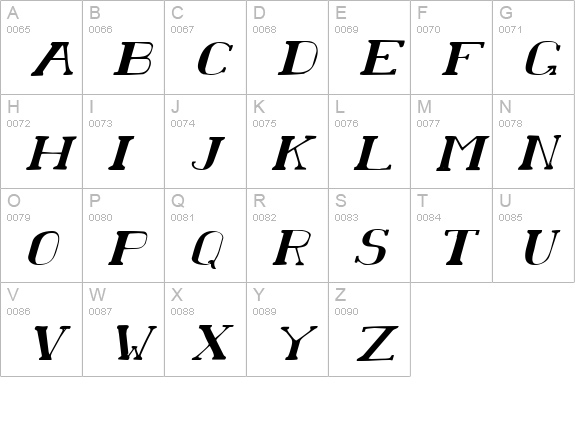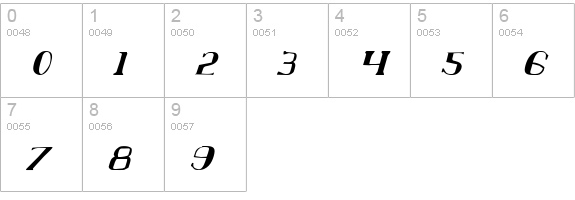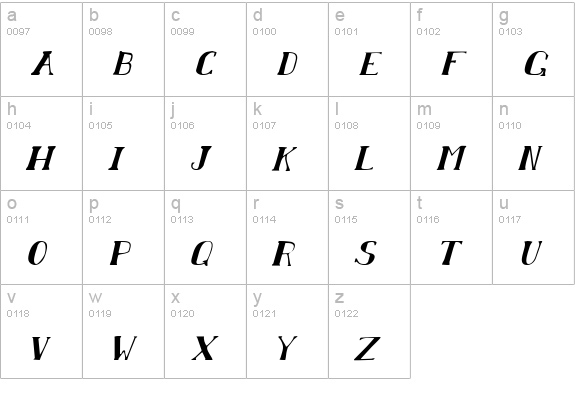
Chardin Doihle Italic is a distinctive, italic variant in the Chardin typeface family \xE2\x80\x94 well suited to design and typography projects.
Chardin Doihle Italic is a versatile and elegant font that exudes sophistication and style. Its flowing curves and delicate serifs give it a timeless appeal that is perfect for adding a touch of class to any design project. Whether you're working on invitations, branding materials, or editorial layouts, this font will elevate your work to the next level. What makes Chardin Doihle Italic even more appealing is that it is completely free to download at FontsMarket.com. This means that you can access this high-quality font without any cost, making it a fantastic choice for both personal and commercial projects. Don't miss out on the opportunity to add Chardin Doihle Italic to your font collection today!